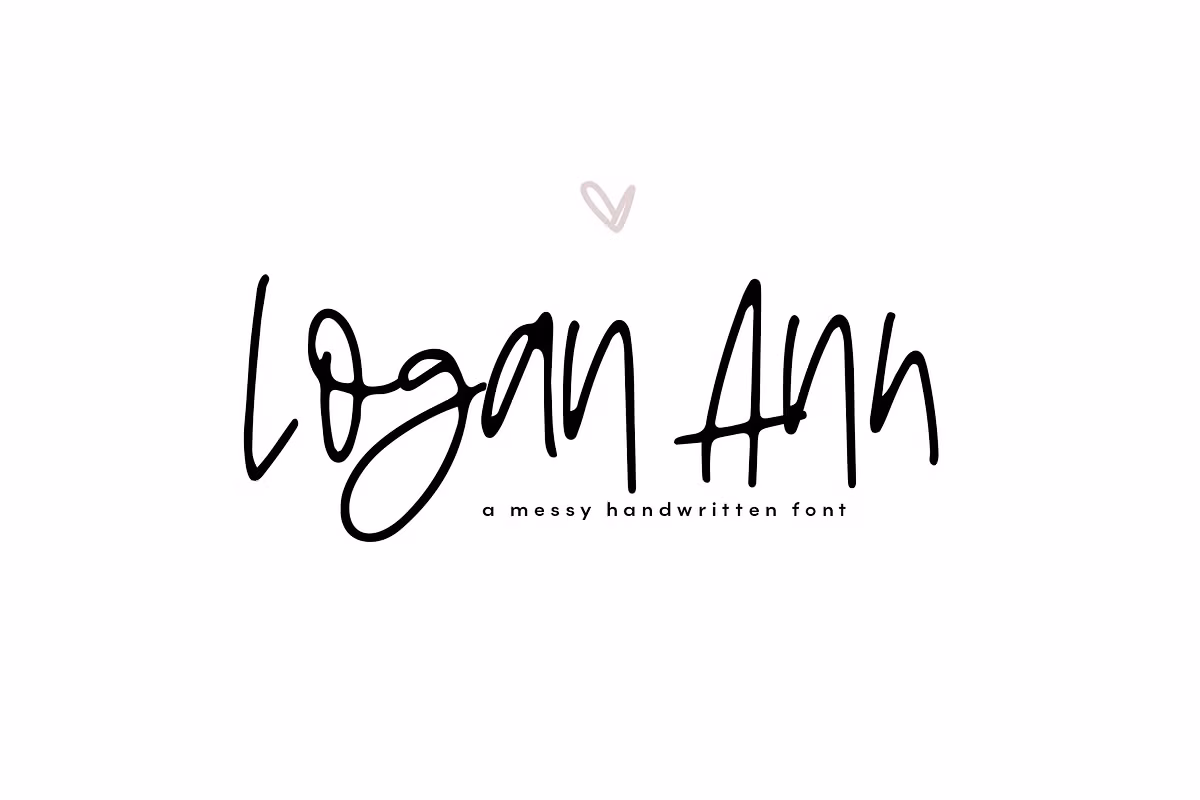
Logan Ann - A Handwritten Font Free Download
The Logan Ann - A Handwritten Font Free Download is a charming and elegant script font that brings a personal, artistic touch to your designs. With its smooth curves and natural handwriting style, this font is perfect for creating custom invitations, branding materials, logos, greeting cards, and more. The delicate and fluid strokes give it a warm and authentic feel, making it ideal for projects that need a refined, handwritten appearance. Please note, for commercial use, a license purchase is required. However, you can easily download the Logan Ann - A Handwritten Font Free Download for free for personal use and explore its beautiful style in your designs. Whether you're designing for weddings, personal projects, or creative branding, this font will add an elegant, handcrafted flair to your typography. Download the Logan Ann - A Handwritten Font Free Download today and elevate your designs with a touch of sophistication.